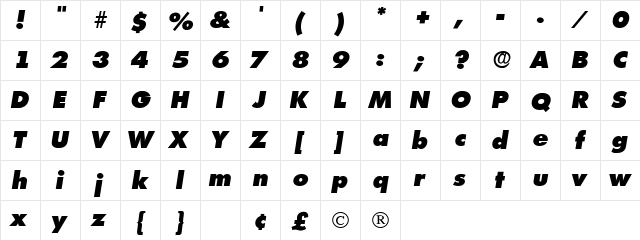
Isomar Display Expanded SSi Expanded Italic Font Preview
Design Context for Isomar Display Expanded SSi Typeface
Isomar Display Expanded SSi is built around its visual character rather than neutral utility — its distinctive forms are designed to make an impression at display sizes. The dynamic lean of this cut emphasises speed and emphasis in any layout.
Font Pairing: Pair with a clean neutral sans-serif for body copy to let Isomar Display Expanded SSi's character lead without overwhelming the composition.
Pro Tip: Treat Isomar Display Expanded SSi as the centrepiece of your typographic hierarchy. One strong heading set in a decorative face can carry an entire layout.